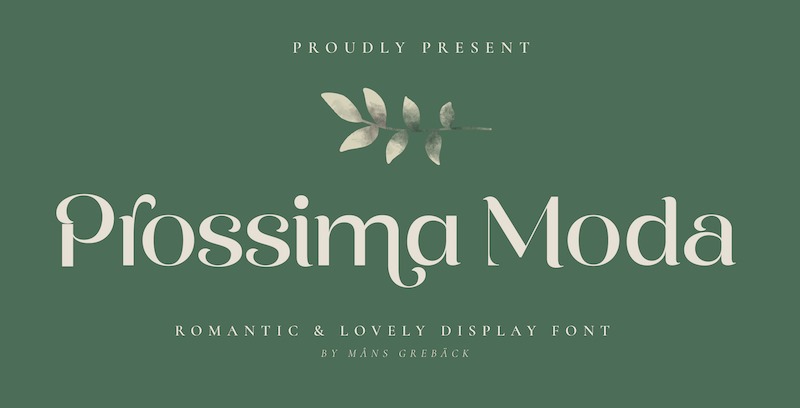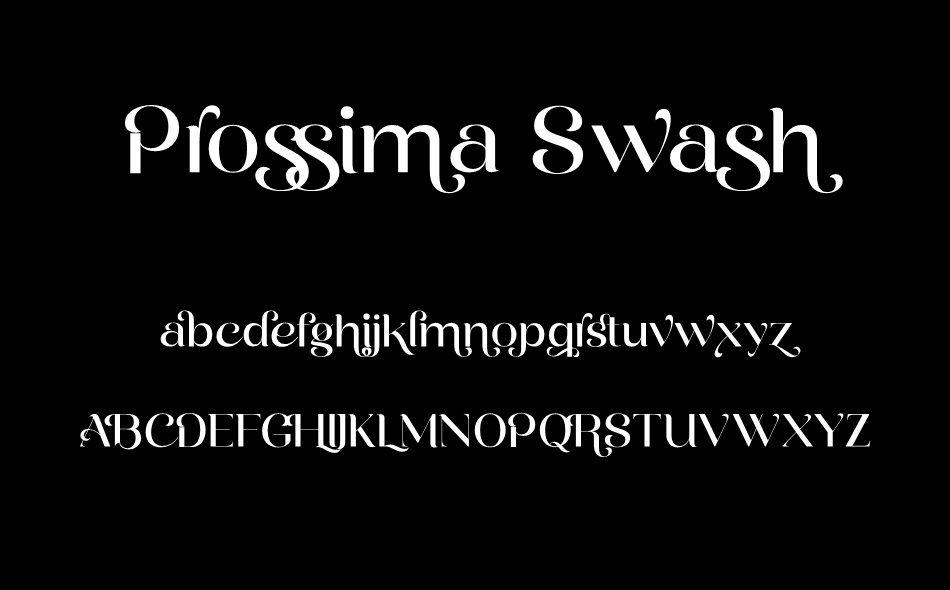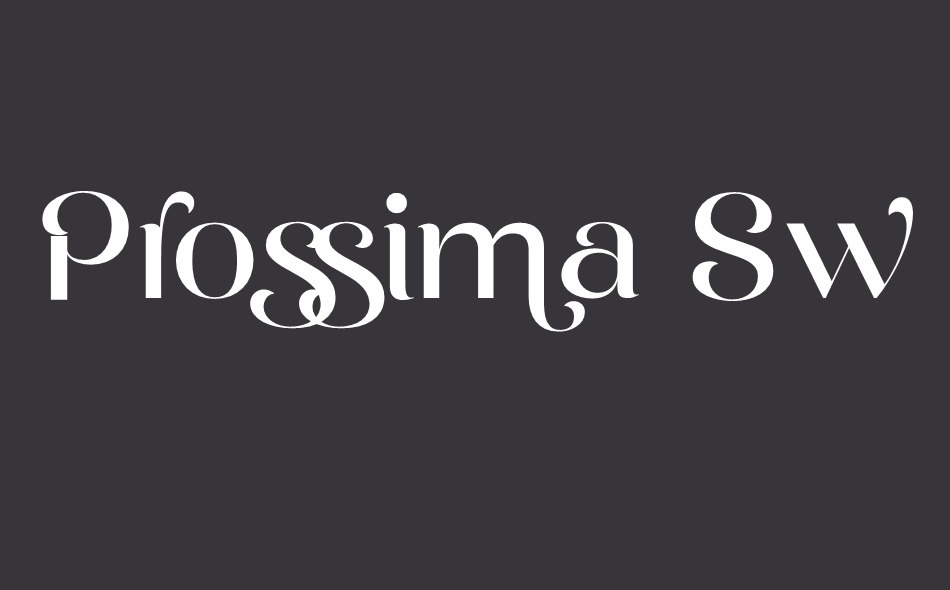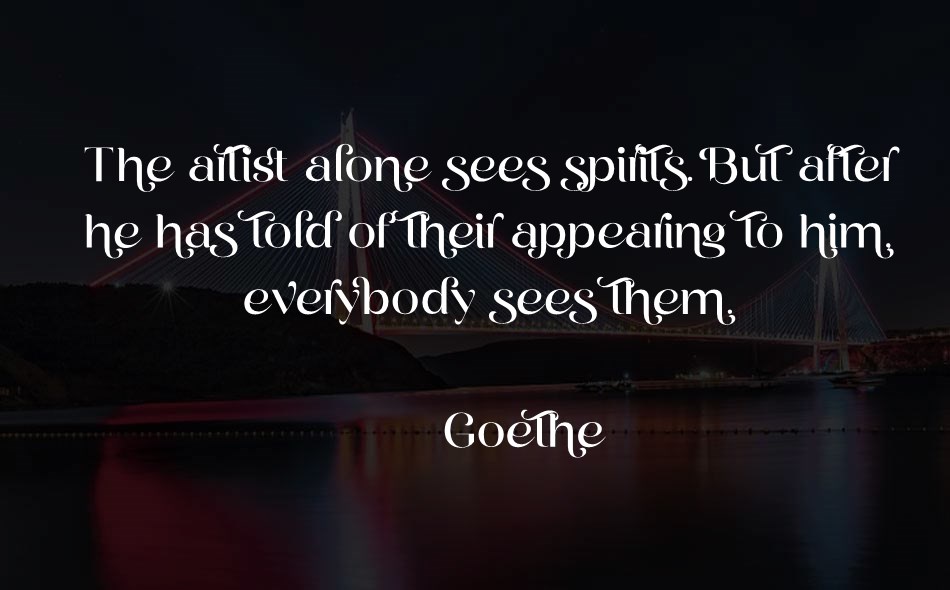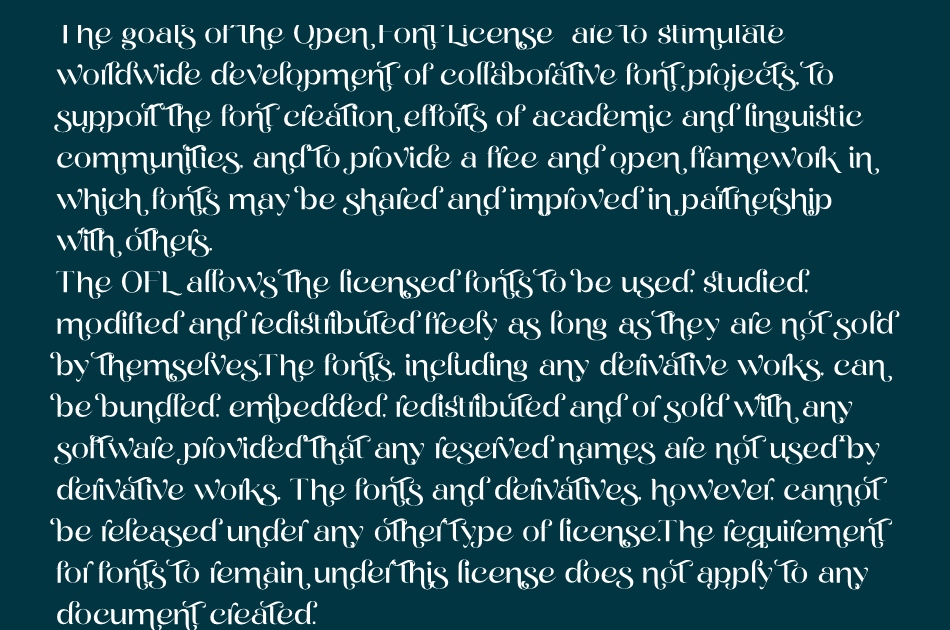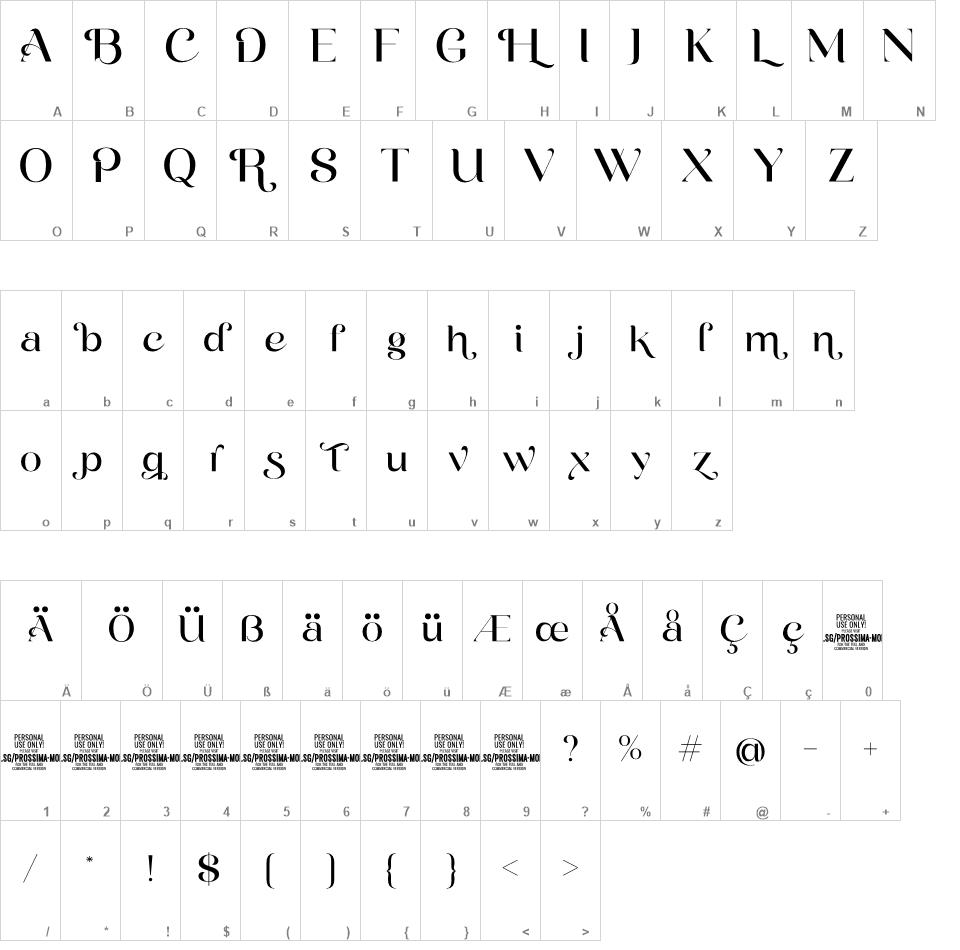
Prossima Moda font
Prossima Moda is a font that radiates modernity and fashion-forward style. Its sleek and contemporary design evokes a sense of sophistication and elegance, while its contrasting lines add a touch of visual interest and intrigue.
Prossima Moda is a font that radiates modernity and fashion-forward style. Its sleek and contemporary design evokes a sense of sophistication and elegance, while its contrasting lines add a touch of visual interest and intrigue. The font exudes a cool and sweet vibe, creating a captivating and alluring atmosphere.
With Prossima Moda, each letter is meticulously crafted to showcase its unique beauty, creating a harmonious blend of form and function. The font's smooth curves and clean lines give it a polished and refined look, reflecting the precision and attention to detail that are synonymous with the fashion industry.
This font not only captures the spirit of the latest fashion trends, but it also embodies a sense of individuality and self-expression. It is a font that speaks to the modern individual who seeks to make a statement and stand out from the crowd.
The font is built with advanced OpenType functionality and has a guaranteed top-notch quality, containing stylistic and contextual alternates, ligatures, and more features; all to give you full control and customizability. It has extensive lingual support, covering all Latin-based languages, from Northern Europe to South Africa, from America to South-East Asia. It contains all characters and symbols you'll ever need, including all punctuation and numbers.
Mans Greback is the innovative designer behind the captivating Prossima Moda font. Hailing from Sweden, Mans has established himself as a prominent figure in the world of typeface design, renowned for his diverse and versatile portfolio.